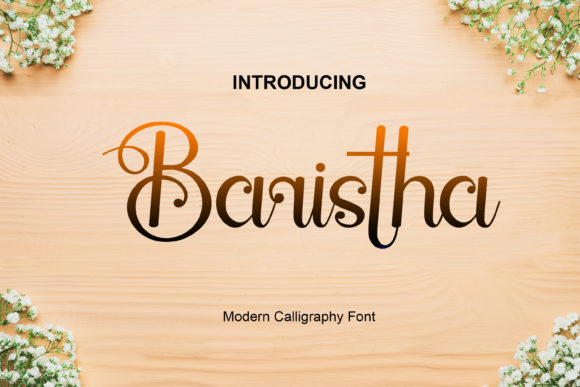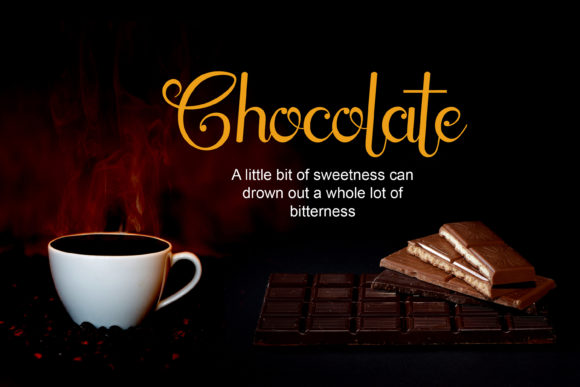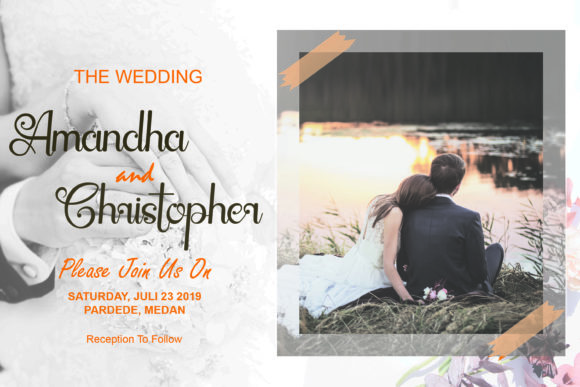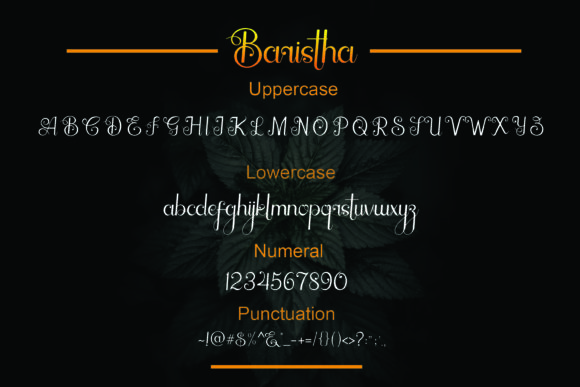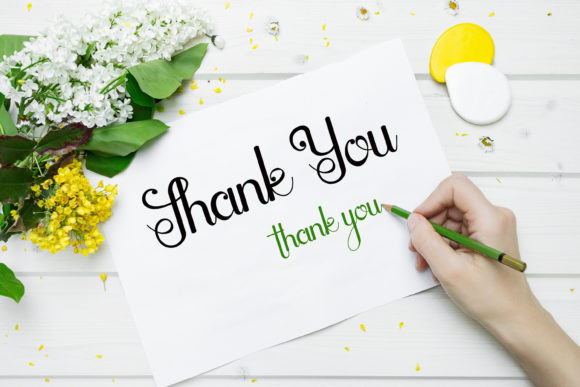
Baristha Font
About Baristha Font
Baristha is modern calligraphy font featuring imperfectly stylish characters. Fall in love with its charming look & feel!